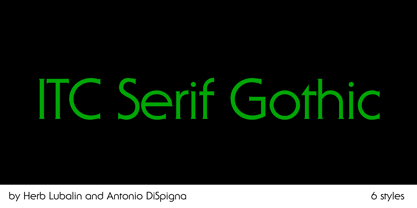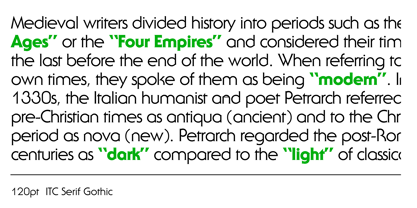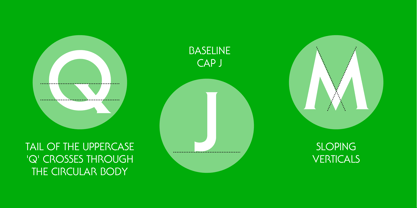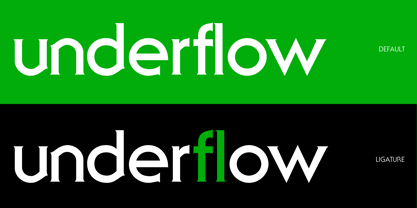
ITC Serif Gothic®
Die Schriftfamilie ITC Serif Gothic wurde von Antonio DiSpigna, Herb Lubalin entworfen und von ITC veröffentlicht. ITC Serif Gothic enthält 6 Stile und Familienpaketoptionen.
ITC Serif Gothic® was one of the first typeface families released by ITC and was released as a two-weight display family in 1972. These were met with such popularity that four additional weights were added in 1974. While the first designs were a collaboration of Herb Lubalin and Antonio DiSpigna, the latter were just drawn by DiSpigna.
The design grew out of hand lettering for one of Lubalin’s design studio clients. As the name implies, ITC Serif Gothic follows the pattern of “copperplate gothics,” in that its serif structure is essentially slightly pointed stroke endings rather than full serifs.
While traditionally celebrated in editorial design, ITC Serif Gothic is now gaining prominence in podcast branding, magazine cover headlines, and luxury packaging, where its bold presence makes a statement of both sophistication and intrigue.
ITC Serif Gothic’s versatility – from commanding magazine mastheads to memorable packaging – reflects its durability across decades and genres. It continues to prove its value in modern visual communication, offering a dynamic design that seamlessly marries heritage with high-impact modern applications.